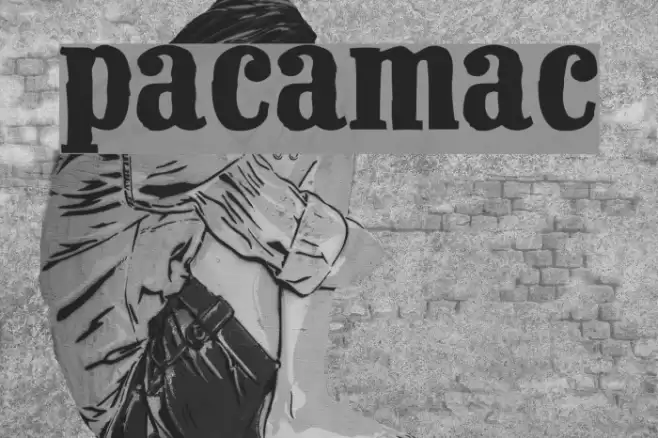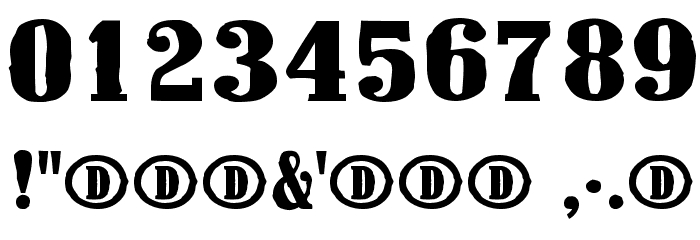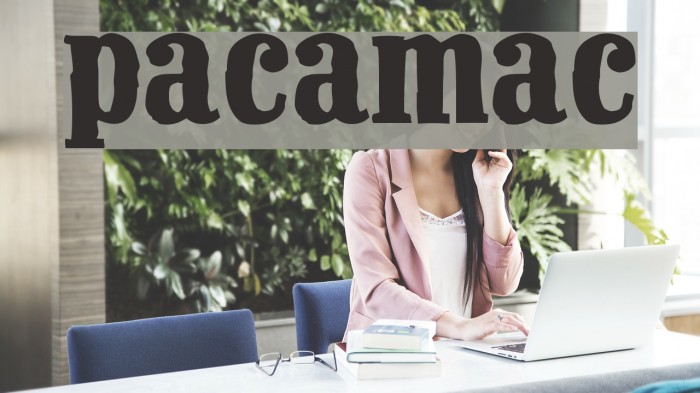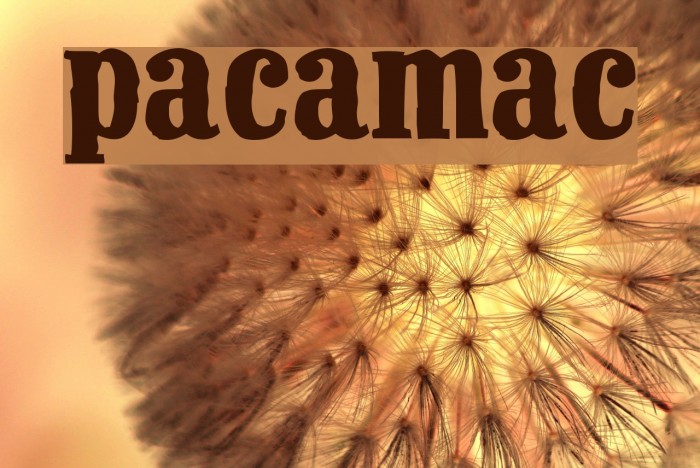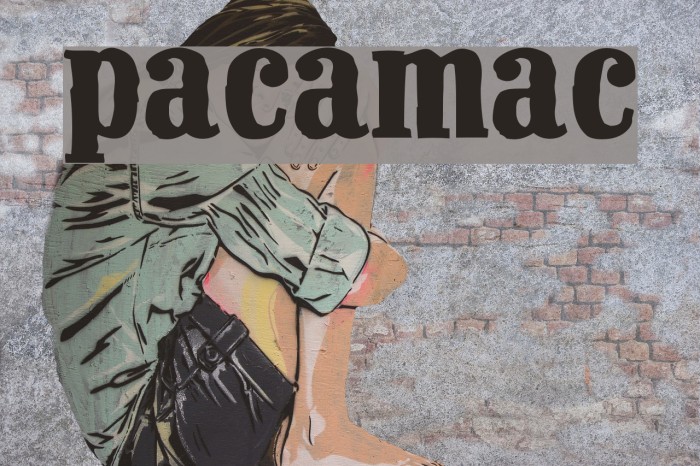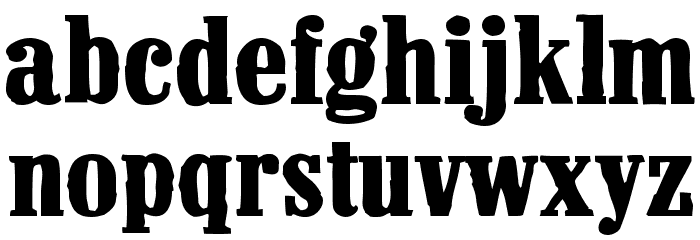
Pacamac Font
Pacamac Description
This font features bold, thick strokes with a strong presence, making it ideal for impactful designs. The characters have a vintage, western-inspired aesthetic with slab serifs that add a touch of ruggedness. The uppercase and lowercase letters maintain a consistent style, with rounded edges and a slightly condensed form. Numbers and special characters follow the same bold and decorative style, ensuring uniformity across all elements. The font's distinct personality makes it suitable for projects that require a bold statement.
A bold, vintage slab serif font with a western flair from Uncategorized fonts.
- Proposed Projects: Ideal for posters, branding, logos, and any design needing a bold, vintage touch.
- Overall Style: Vintage